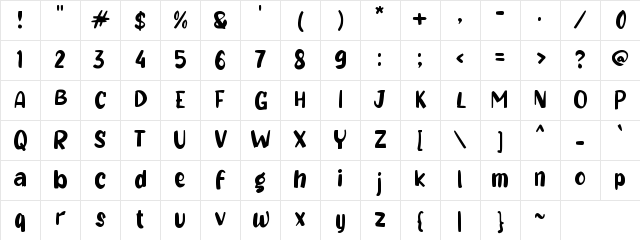
f Flying Bird Regular
Designer: Wahyu Eka Prasetya
Design Context for f Flying Bird
f Flying Bird is a composed and adaptable typeface that performs quietly and consistently across a wide range of design contexts.